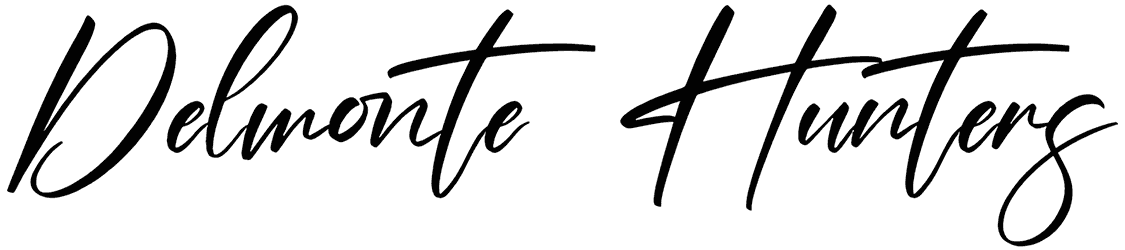
Delmonte Hunters Font
Delmonte Hunters is a beautiful handwritten font that can be used to make digital artwork look and feel more creative and interesting.
You can take your presentation to the next level by using this script font for anything from invitations and videos to tattoos, romantic writing, and social media. The varied styles in this natural font are worthy of praise. By all means, take on the challenge if you’re up for it.